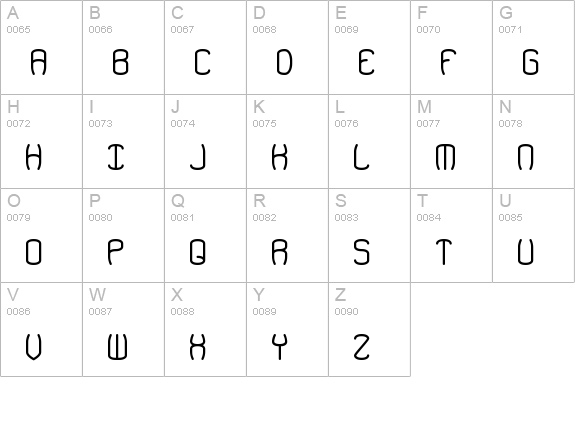
Redundant BRK Font Details
Redundant BRK font is a quirky and unique typeface that exudes a sense of playful charm. With its bold lines and exaggerated curves, this font is sure to make a statement in any design project. The Redundant BRK font is not only visually appealing but also highly versatile, making it suitable for a wide range of applications. What sets Redundant BRK font apart is its ability to add a touch of fun and whimsy to any design while still maintaining a professional look. Whether you're creating posters, invitations, or social media graphics, this font is sure to catch the eye and leave a lasting impression. Best of all, Redundant BRK font is completely free to download at FontsMarket.com. So why wait? Add this charming and versatile font to your collection today and let your creativity shine!